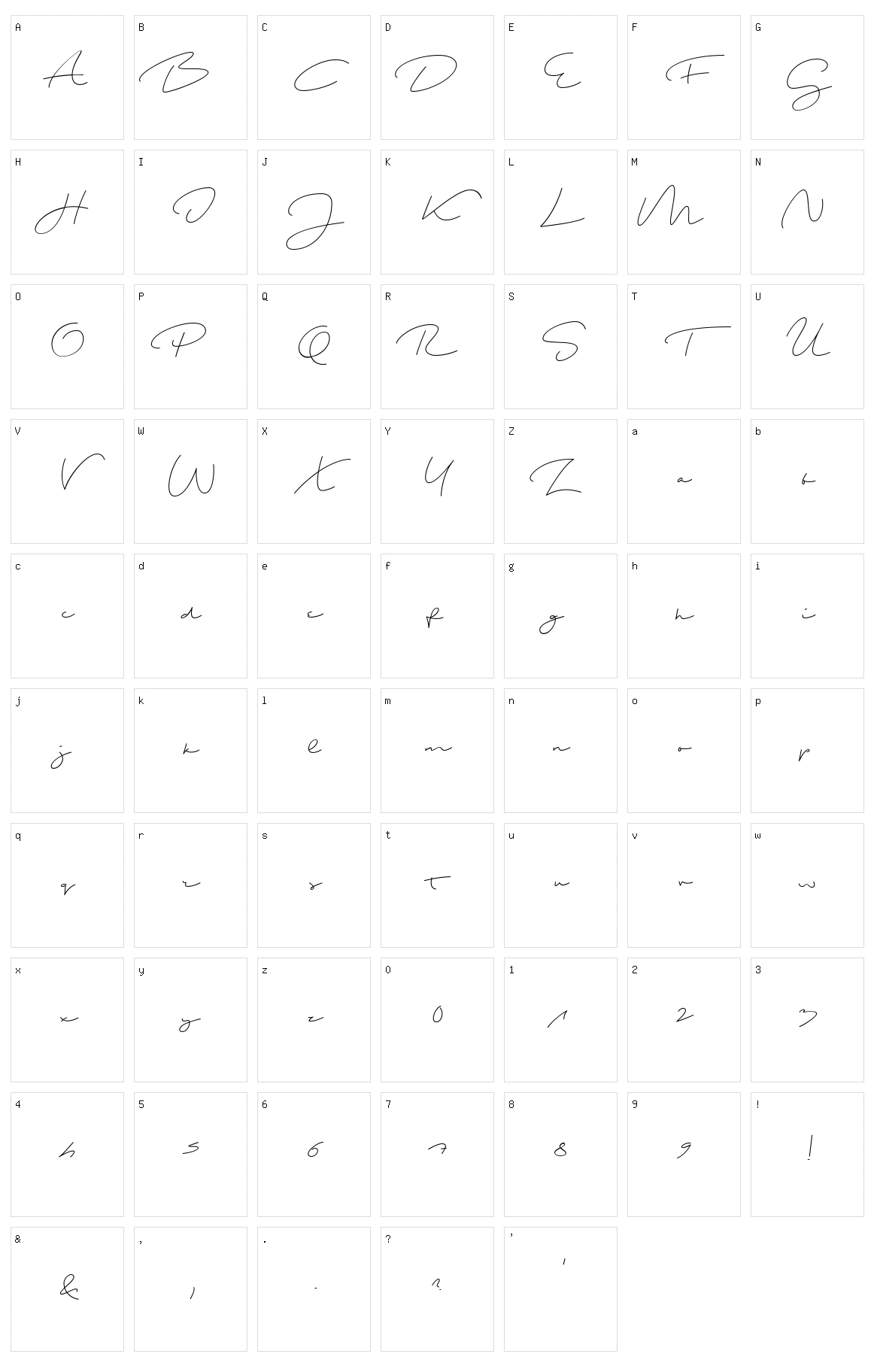
The free font Shopping Script is carefully designed by Roland Huse Design, showcasing a thoughtful balance of creativity and usability and falls under the Script font style. When you download the ZIP file, it contains only 1126.34 KB of font files, making it lightweight and quick to download. Please review the license details below to understand permitted usage and distribution rights. If license information is not available, we recommend using this font for personal projects only or contacting the author directly for commercial usage permissions.
ÿþS H O P P I N G S C R I P T i s a c u r s i v e s i g n a t u r e s t y l e h a n d w r i t t e n s c r i p t .